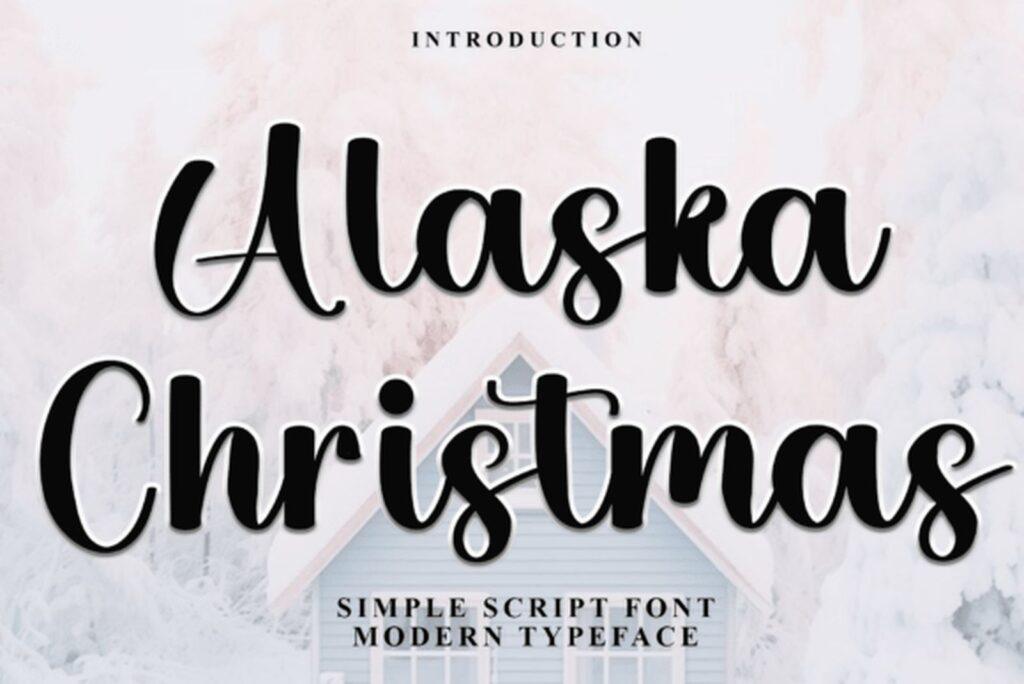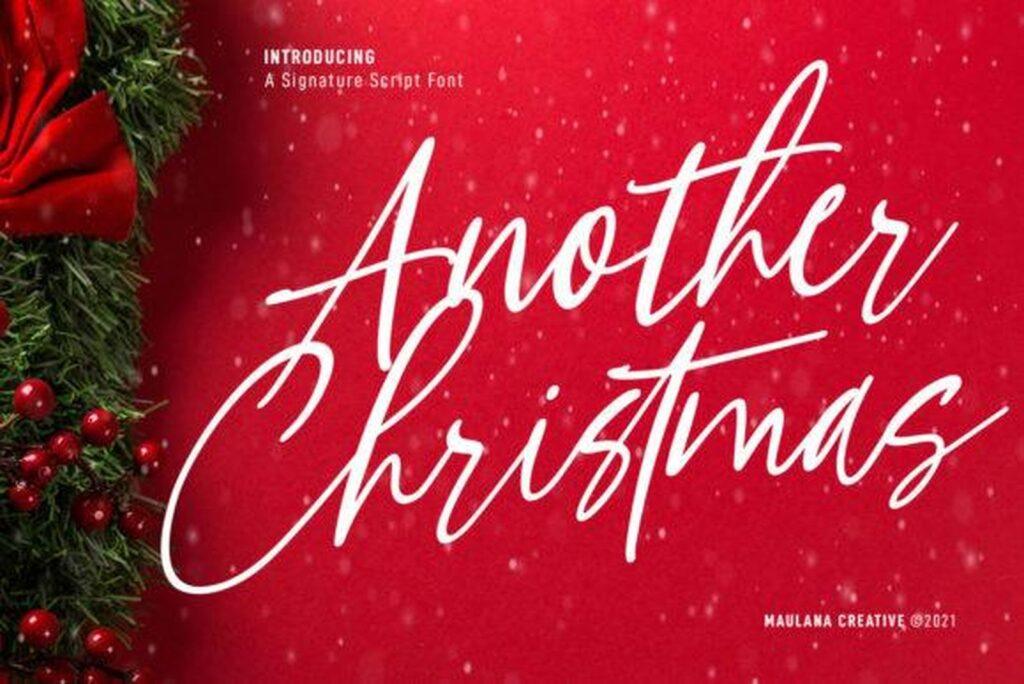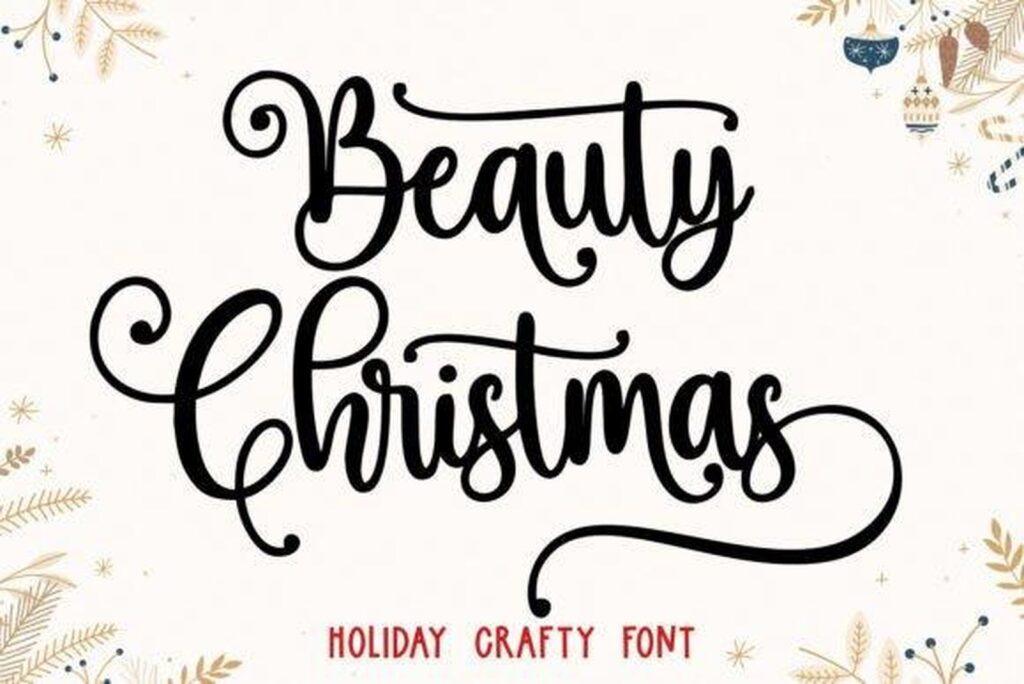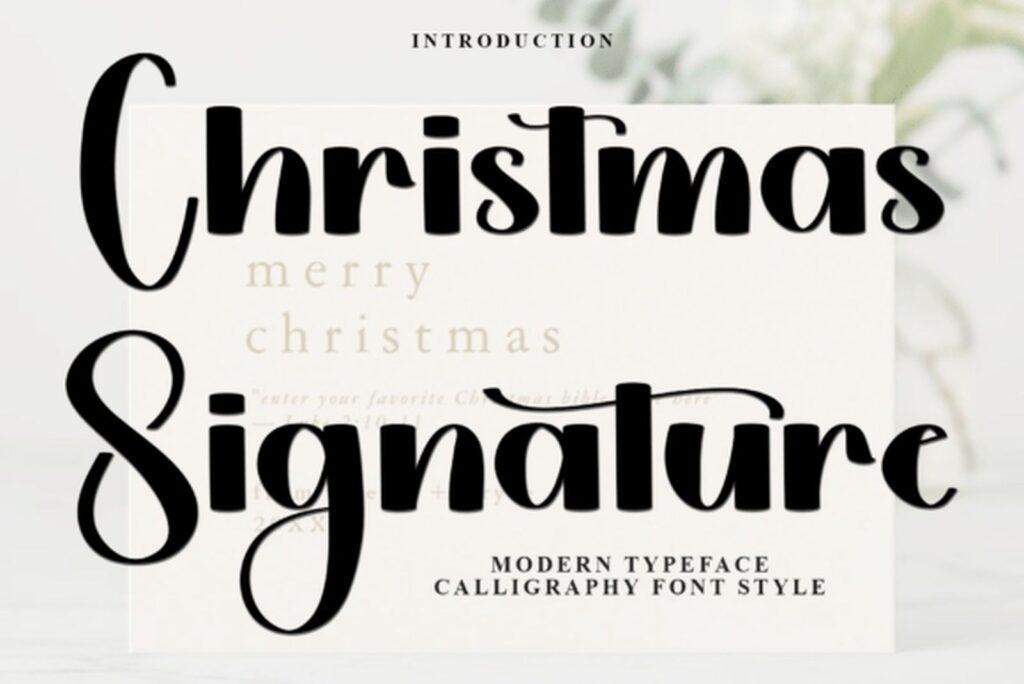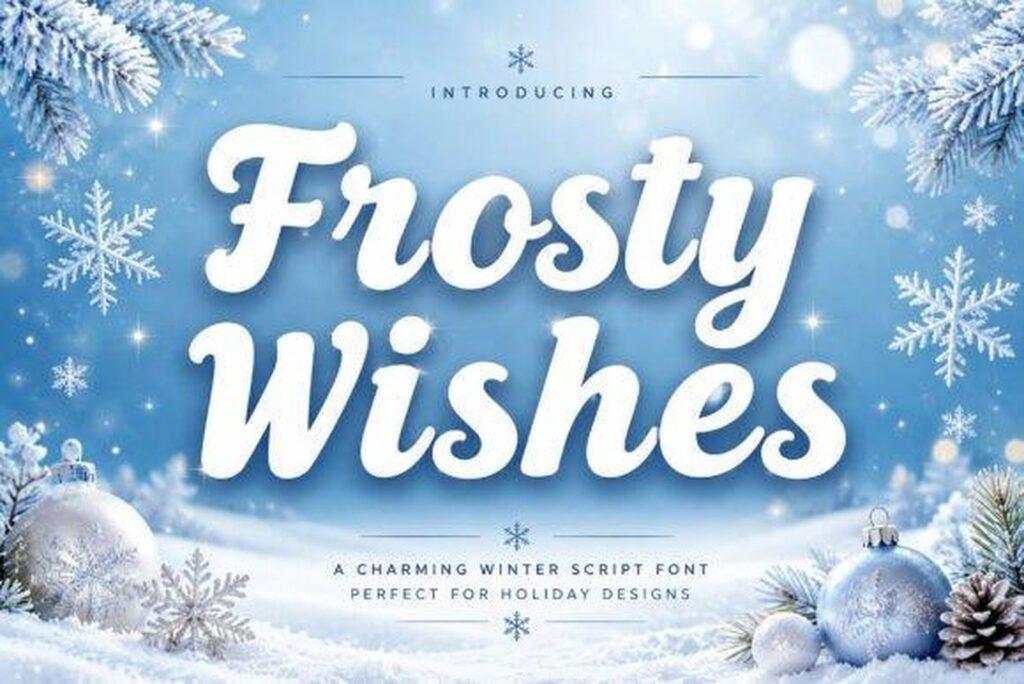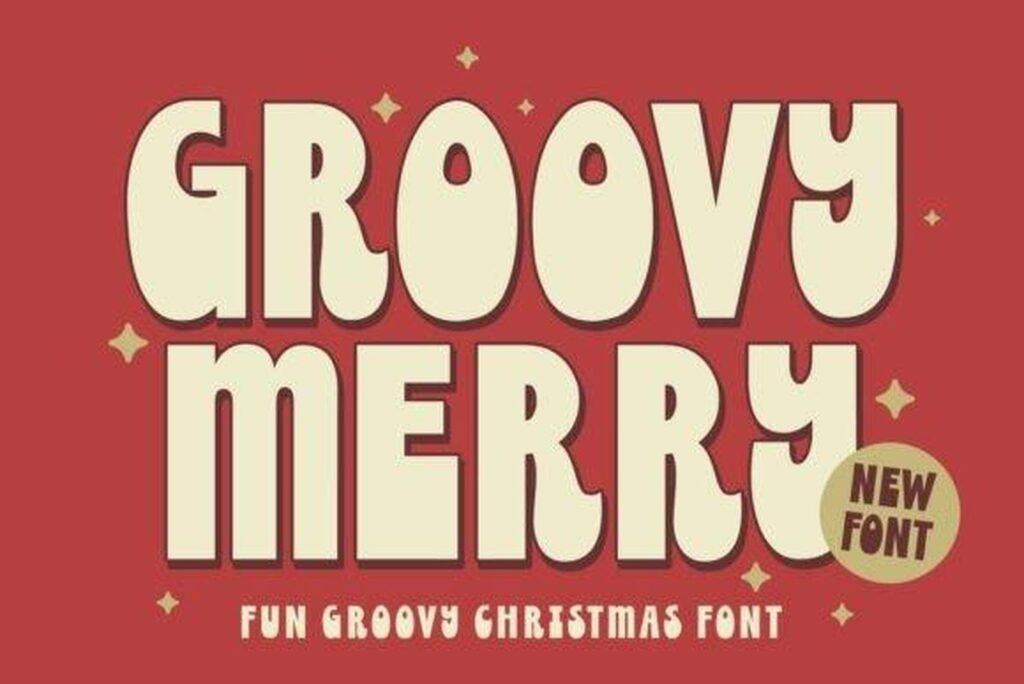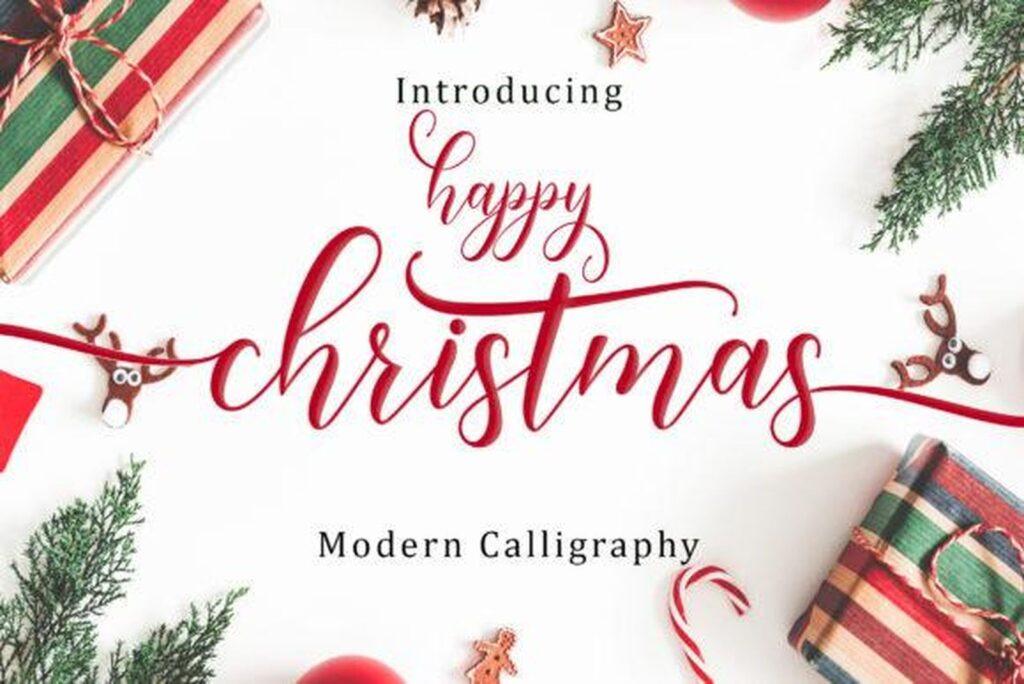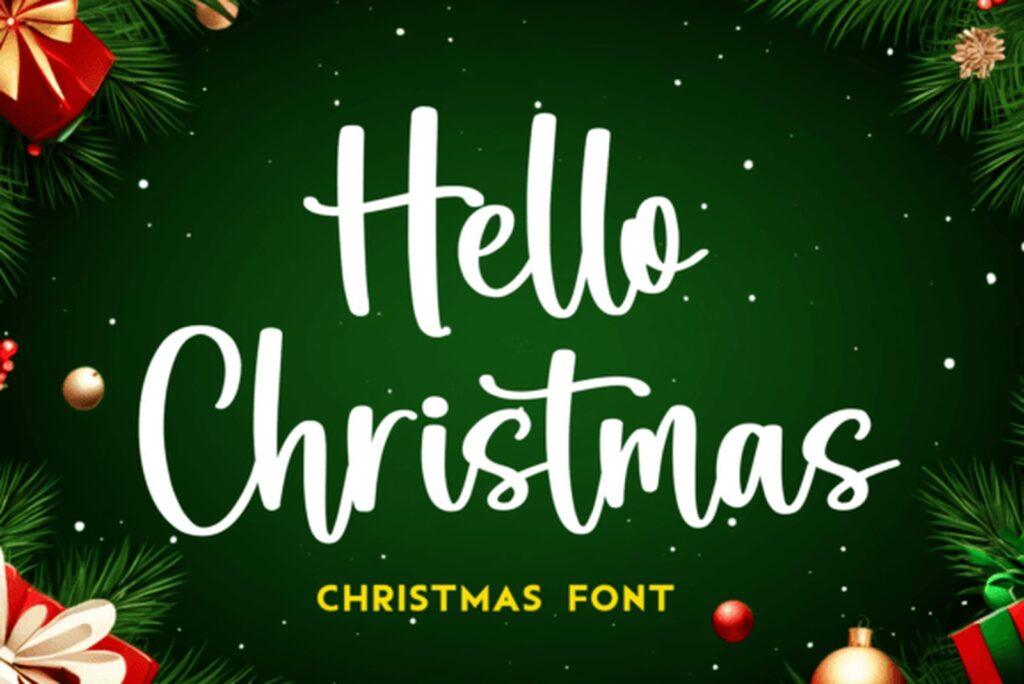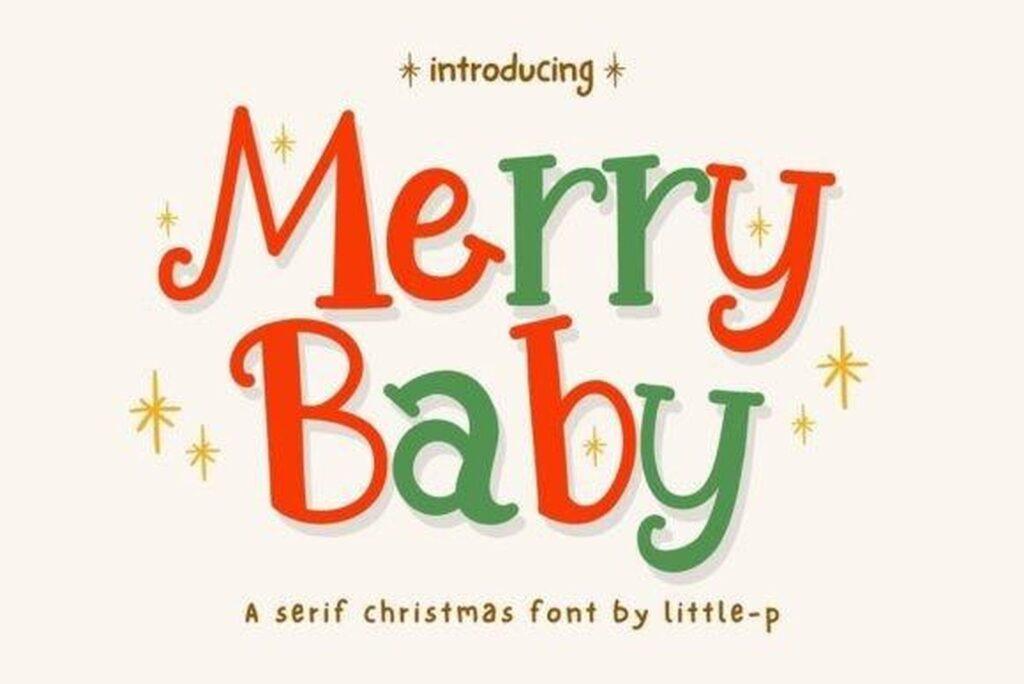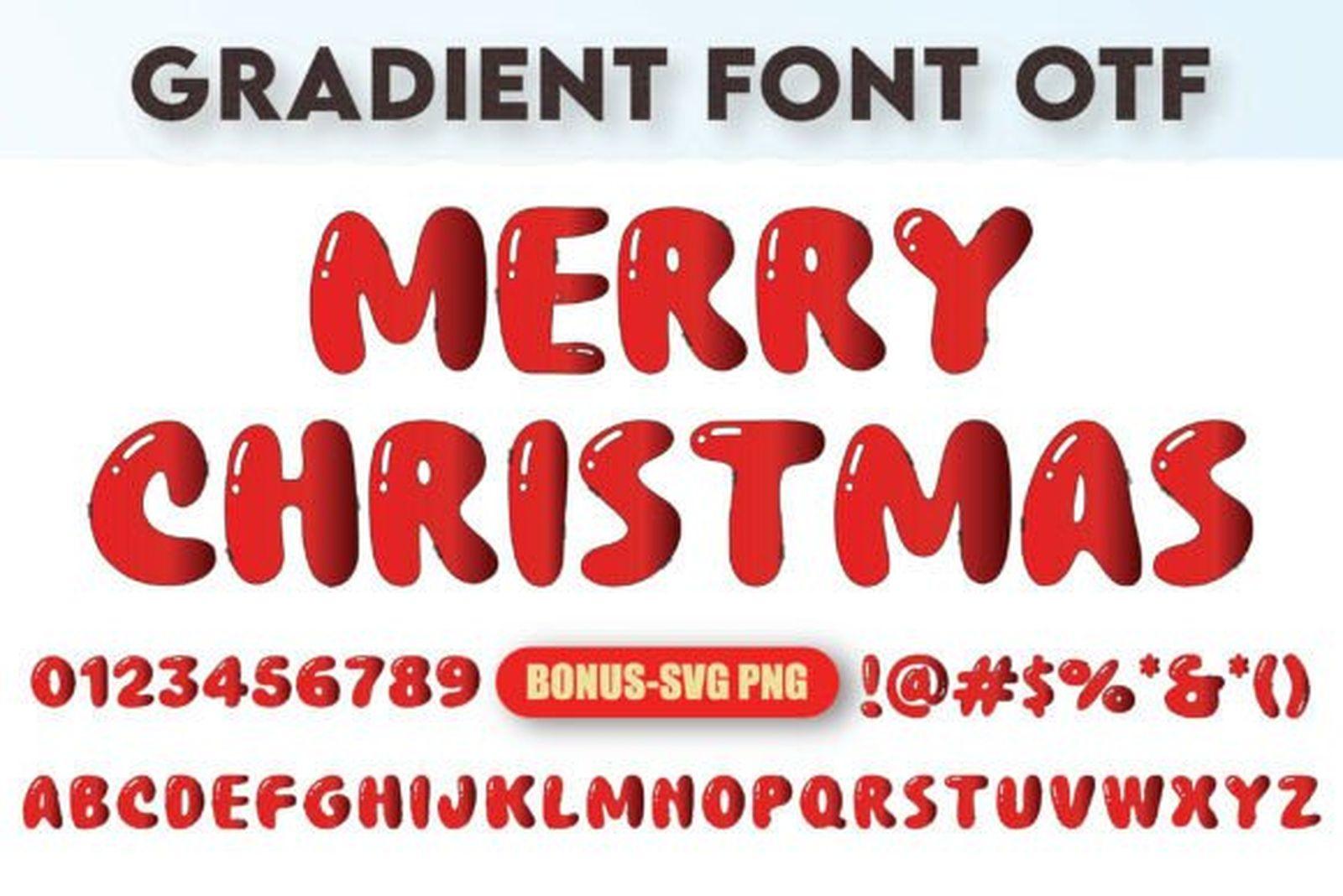
20 Merry Christmas Fonts in script, calligraphy and hand-lettered styles for cards and signs
20 Merry Christmas Fonts: Script, Calligraphy and Hand-Lettered Styles for Cards and Signs
A “Merry Christmas” greeting is only two words, but the font decides how it feels. Written in flowing calligraphy, it looks like a hand-signed card; set in chunky retro letters, it becomes a cheerful sticker; dressed in candy stripes, it turns into party decor. That is why the same phrase can look completely different from one project to the next.
This list gathers 20 Merry Christmas fonts in four styles: calligraphy and script, handwritten and hand-lettered, retro and vintage, and playful display. Each pick comes with a short note on the letter shapes, where the style works best and where it starts to struggle.
What Makes a Good Merry Christmas Font
The phrase “Merry Christmas” has a few quirks. It mixes tall letters like the h, t and y with round ones, so a script needs balanced spacing to keep the word from looking crowded. The capital M and C carry most of the visual weight, which is why fonts with expressive capitals tend to look best in this greeting.
Size and surface matter as much as style. Thin calligraphy looks elegant on a card held in the hand but fades on a poster seen across a room. Heavy, rounded letters read from far away and cut cleanly from vinyl. Decorative fonts with patterns or stripes need large sizes to show their details.
Calligraphy and Script Merry Christmas Fonts
These fonts turn “Merry Christmas” into flowing handwriting. They suit cards, invitations and framed prints, where a single greeting is the focus of the design.
1. Miracle Christmas Font
by Madatype Studio
Miracle Christmas Font calligraphy for Merry Christmas cards
Best For: Christmas card headlines, invitations, framed quotes
Miracle Christmas Font is presented as a beautiful handmade calligraphy font, and the preview sets it in white on a deep red background above a row of little houses. The letters flow with long entry and exit swashes, so a single word like “Christmas” already looks finished without any extra decoration.
Those swashes need room at the edges of a line, so give the phrase plenty of space on a card or a framed print. For small text such as a greeting inside the card, switch to a simpler companion font and let this one carry the headline.
2. Happy Christmas Script Font
by Amarlettering
Happy Christmas Script Font modern calligraphy for Christmas greetings
Best For: greeting cards, gift tags, social media greetings
Happy Christmas Script Font is a modern calligraphy, and the preview writes “happy christmas” in lowercase red letters with a bouncy baseline and thin, lively strokes. It feels written rather than typed, which is what most people want from a Merry Christmas greeting.
The fine hairlines look lovely at card size and larger. On tiny gift tags or low-resolution screens they can fade, so keep it big enough for the thin strokes to stay visible.
3. Christmas Signature Font
by FreshTypeINK
Christmas Signature Font bold script for Christmas signs
Best For: card headlines, holiday signage, Christmas quotes
Christmas Signature Font sets bold black script letters with large, looping capitals. The contrast between the heavy downstrokes and the lighter joins gives it a confident, hand-signed feel that reads well from a distance.
Because the strokes are strong, it works on printed signs as well as cards. Use capitals for the first letter of each word only; a phrase set entirely in the looped capitals becomes hard to read.
4. Magic Christmas Font
by mubarocktype
Magic Christmas Font elegant script on dark Christmas background
Best For: dark-background cards, digital greetings, elegant invitations
Magic Christmas Font is shown as a modern Christmas font, written in cream on a dark backdrop with ornaments and pine cones. The script leans to the right and stretches its tall letters upward, which gives it an airy, elegant rhythm.
It looks its best in light colors on dark green, navy or black, where the long strokes glow against the background. Keep lines short, since the tall ascenders need extra spacing between rows.
Find Your Merry Christmas Style
The easiest way to choose a Merry Christmas font is to decide how the greeting should feel: elegant, personal, nostalgic or playful. Then match it to the surface, whether that is a printed card, a vinyl mug or a social post. One expressive font for the greeting and one simple font for everything else is enough to make the whole design look intentional.